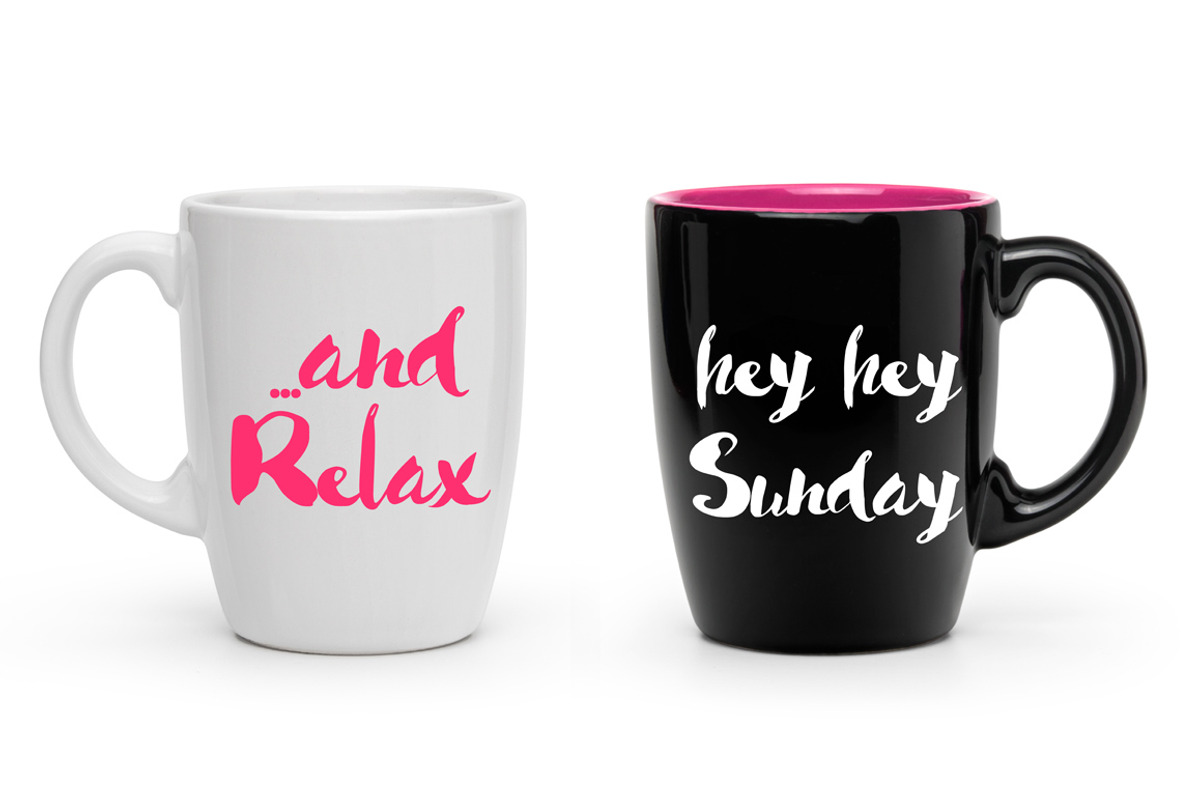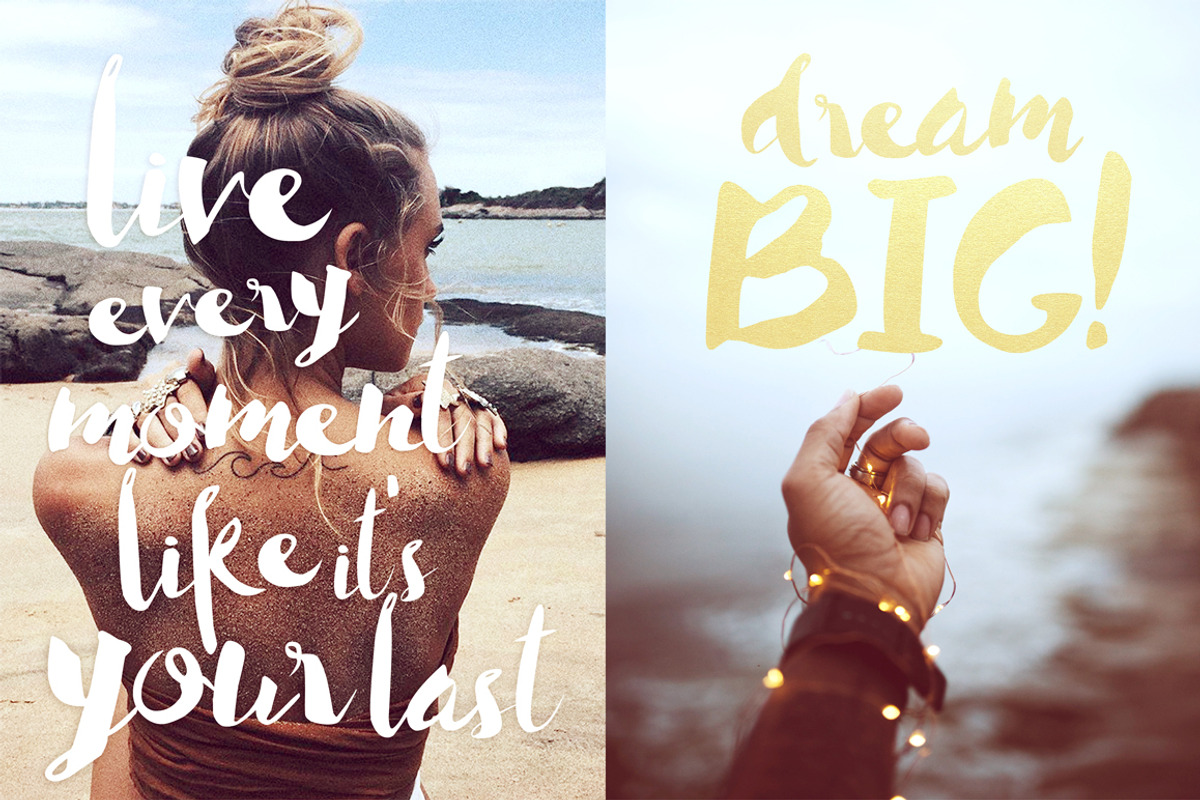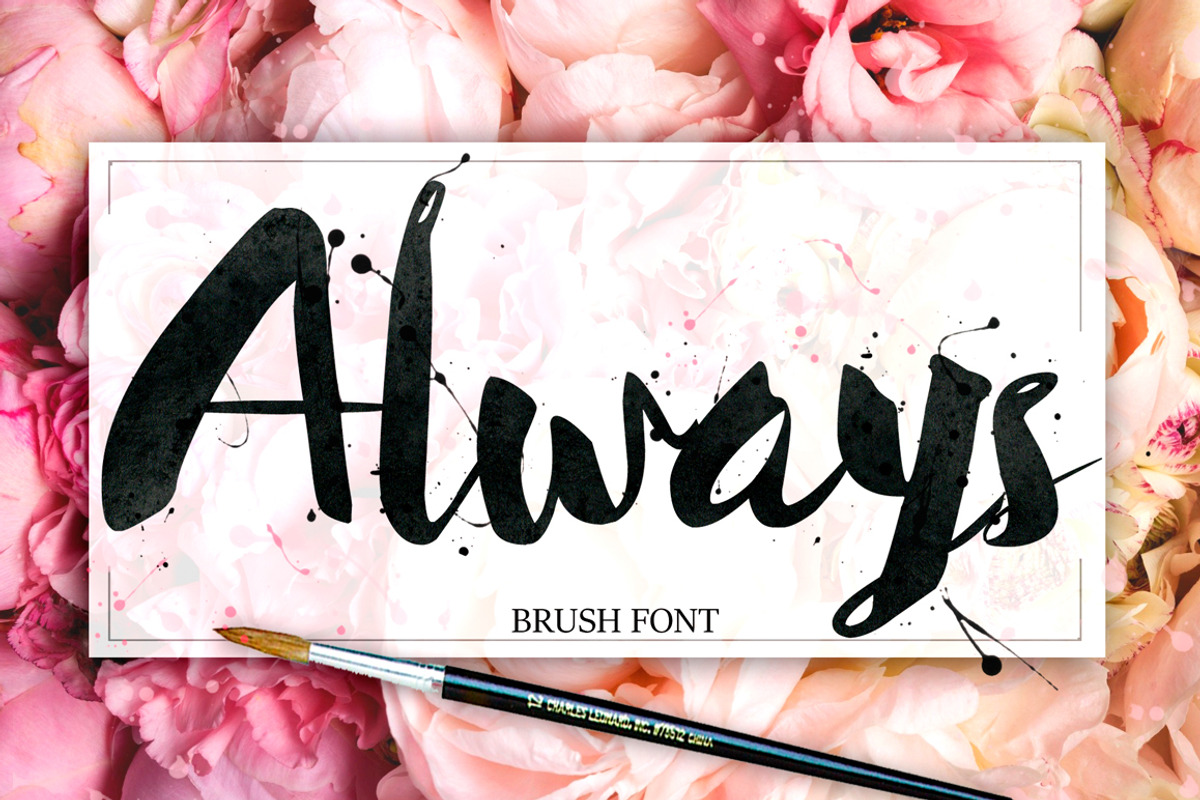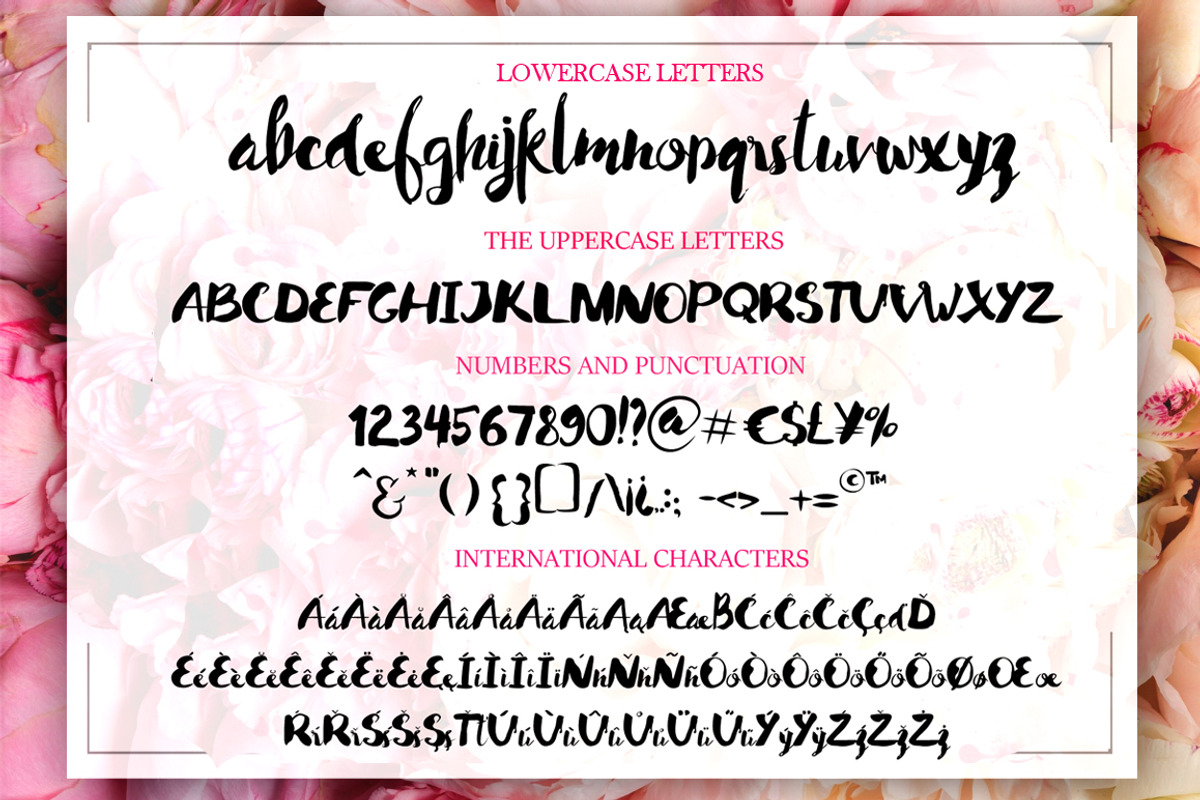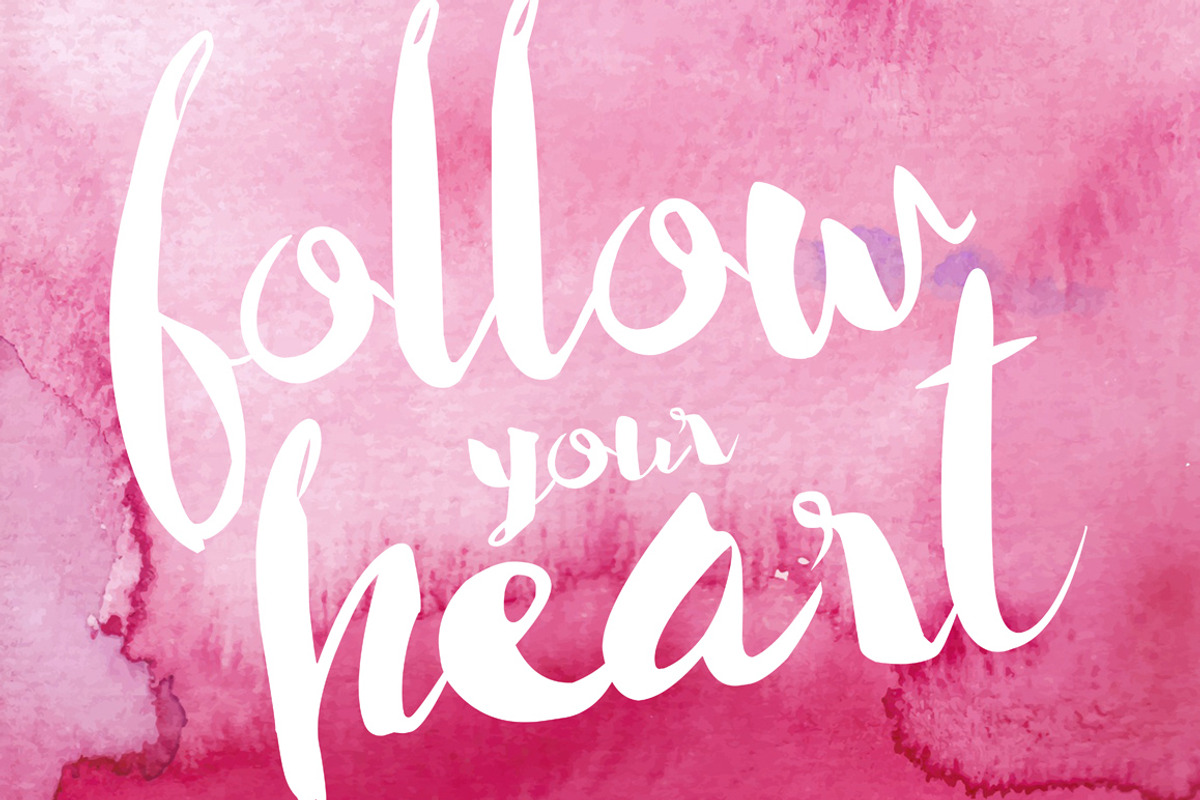
Always Brush Font
AlwaysFont is a beautiful font which has been hand-lettered with a brush and ink. This hand-lettered script will look gorgeous on all your designs, wedding invites, branding materials, logo's, business cards, and quotes.
AlwaysFont contains standard characters, lowercase, uppercase, numbers, punctuation and international characters.
. Fonts include multilingual support for the following languages; English, French, Italian, Spanish, Portuguese, German, Turkish, Swedish, Norweigen, Danish, Dutch, Finnish, Polish, Indonesian, Filipino, Malay
- WHAT'S INCLUDED AlwaysFont contains standard characters, lowercase, uppercase, numbers, punctuation and international characters.
Always Brush Font by fairytale fits naturally into Branding, posters, packaging, typography.